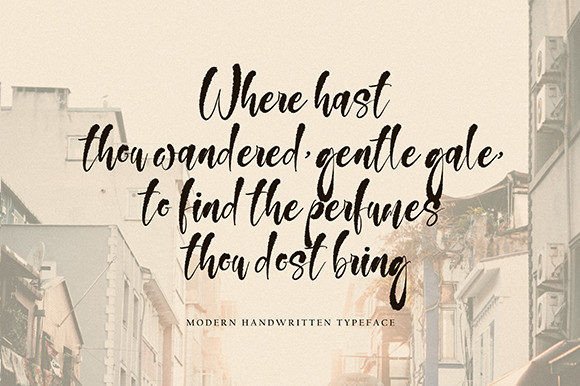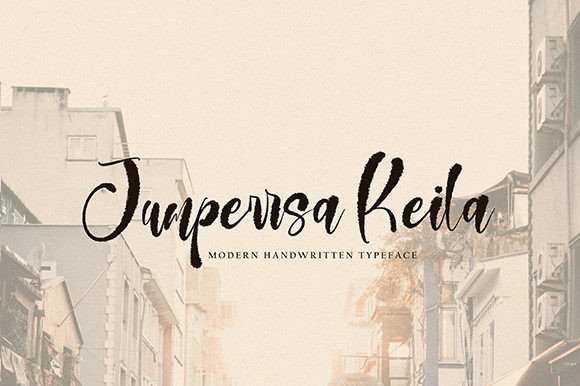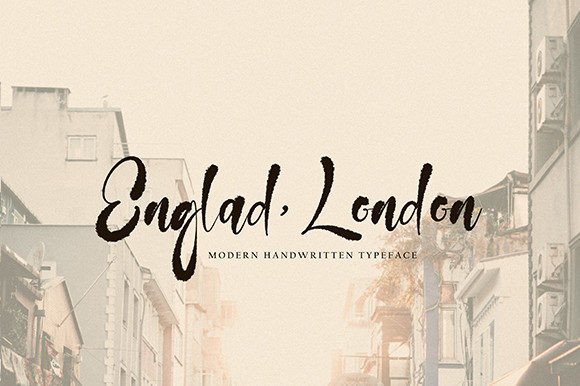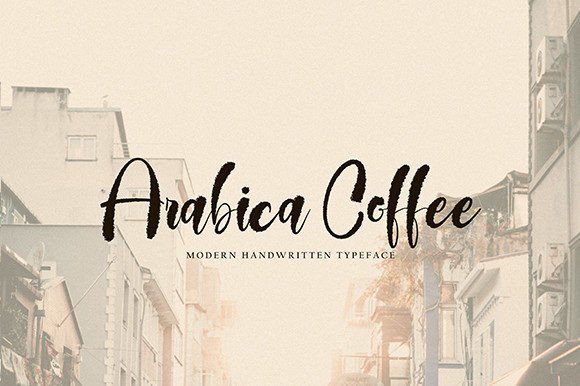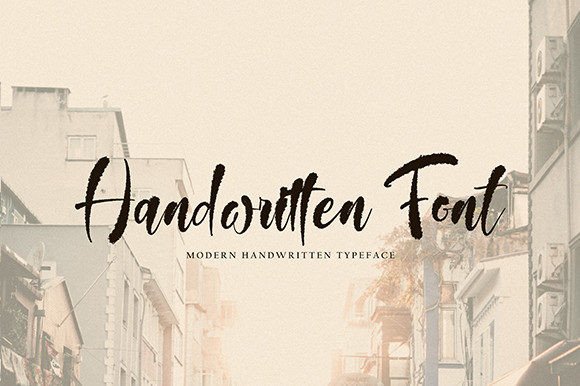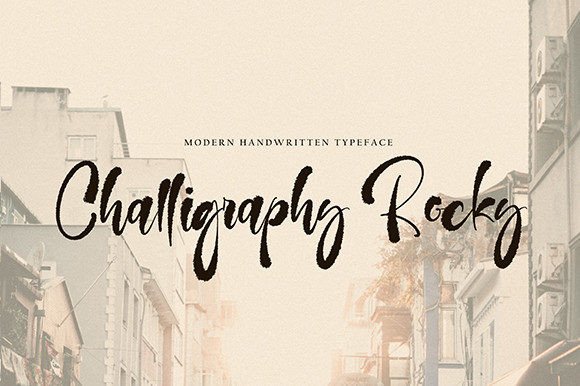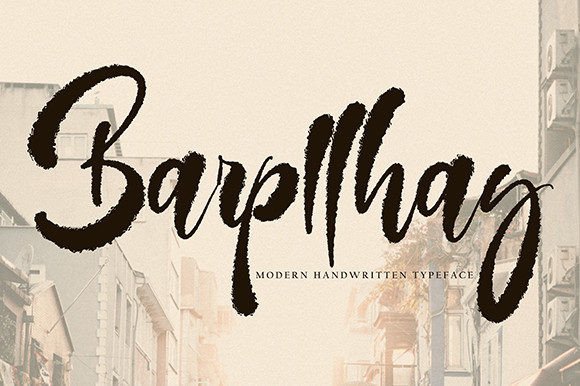
Unlock the Magic of Handwritten Typography
Remember the thrill of creating something from scratch? The feeling of bringing an idea to life, and watching it transform into a beautiful, tangible piece of art? That’s exactly what happens when you add the right font to your project. And today, we’re excited to introduce you to one that’s sure to spark your creativity: the Barpllhay Font.
This modern and cool handwritten brush font is designed to add a touch of personality to your designs. Whether you’re working on a branding project, a marketing campaign, or a personal creative pursuit, Barpllhay Font is the perfect addition to take your work to the next level. With its unique blend of modernity and whimsy, this font is sure to bring a smile to your face and a sparkle to your designs.
As a designer, you know how valuable a great font can be. It’s not just about aesthetics – it’s about conveying the right message and creating an emotional connection with your audience. That’s why we’re confident that the Barpllhay Font will become a staple in your design toolkit, helping you to create projects that truly stand out.
• Unique Characteristics: Features a unique blend of modern and traditional design elements, with intricate details and subtle flourishes
Designer Review: Barpllhay Font
At first glance, I was intrigued by the unique characteristics of Barpllhay Font. ✨ The font’s bold and playful feel is perfect for creating attention-grabbing headlines and adding a touch of whimsy to your designs.
Here are some of the things that work well with Barpllhay Font:
• ✨ Uniquely rounded edges that add a friendly feel to the font.
• ✨ Highly customizable with a wide range of weights and styles.
• ✨ Compatible with most design software, making it easy to integrate into your workflow.
• ⚠️ Some letters, such as the ‘a’ and ‘e’, can appear slightly irregular or inconsistent at certain font sizes.
• ⚠️ The font may not be the best choice for body text, as it can be quite hard to read in smaller sizes.
• ⚠️ Limited language support, which may limit its use for global audiences.
Overall, I would recommend Barpllhay Font for projects that require a bold and playful touch. While it may have some limitations, its unique characteristics make it a great addition to any designer’s toolkit.
Tips for Getting the Most Out of Barpllhay Font
For optimal results, use Barpllhay font in conjunction with high-contrast colors and simple design elements.
Avoid using the font in small sizes or with low-contrast backgrounds, as it may become difficult to read.
Barpllhay font is ideal for use in creative projects, such as:
– Infographics and visualizations
– Editorial and publishing design
Alternatives to Barpllhay Font
Oswald is a sans-serif font that is highly legible and versatile. It is suitable for use in headings, titles, and body text. Oswald has a more geometric and modern look compared to Barpllhay Font, which is more rounded and traditional. Use Oswald when you want a clean and modern design.
Playfair Display is an elegant and luxurious serif font that is perfect for use in titles, headings, and magazine covers. It has a more classic and sophisticated look compared to Barpllhay Font, which is more modern and minimalist. Use Playfair Display when you want to add a touch of sophistication and elegance to your design.